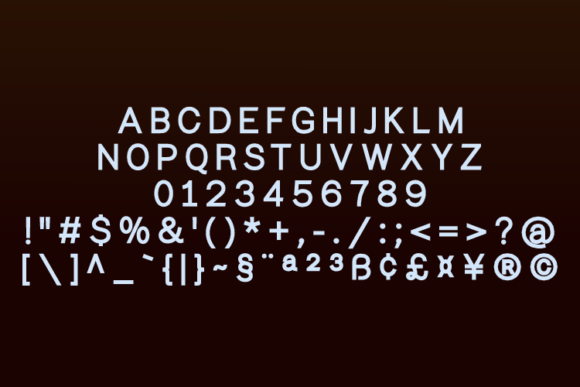
Introduction to Nextart Black Font Font
Fonts play a crucial role in design, and the Nextart Black Font font is a typeface that brings both character and versatility to any project. Whether you’re working on a branding project, a website, or a print design, the Nextart Black Font font offers a unique style that can elevate your work.
| π€ Author | Nan Design |
Nextart is a romantic, timeless, and minimalistic all caps sans serif font that looks stunning in any context.
Itβs perfect for magazine layouts, invitations, headers, or even large-scale artwork .
Key Features of Nextart Black Font Font
Why Choose Nextart Black Font Font?
The Nextart Black Font font is more than just a typeface β it’s a design tool that helps you communicate your message with style and clarity. Its unique character set and versatile design make it suitable for a wide range of applications, from elegant invitations to bold headlines.
With its carefully crafted letterforms and balanced proportions, the Nextart Black Font font ensures readability and visual appeal across all mediums.
What makes Nextart Black Font font special?
The Nextart Black Font font stands out with its unique design, exceptional readability, and versatility across various design applications.